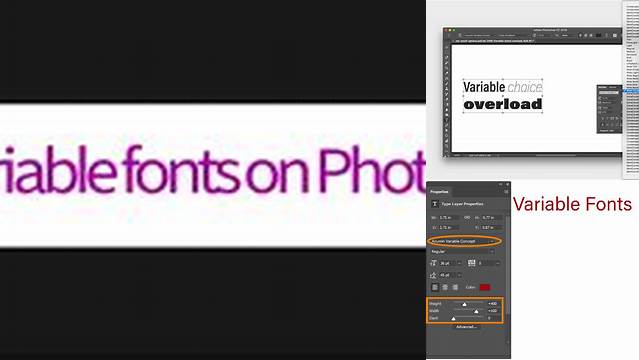
Use Variable Fonts In Photoshop: A Comprehensive Guide
Variable fonts, guys, are like the superheroes of the font world! They're super flexible and can morph into different styles using a single font file. This means smaller file sizes (yay for faster websites!) and tons of creative control. And guess what? Photoshop loves them! So, let's dive into how you can unleash the power of variable fonts in Photoshop.
What are Variable Fonts and Why Should You Care?
Before we jump into the Photoshop specifics, let's quickly chat about what variable fonts actually are. Imagine a regular font – it's like a fixed image. You get one weight (like bold) or one style (like italic), and that's it. Variable fonts, on the other hand, are like shape-shifters. They contain a range of styles within a single font file. This isn't just about bold and italic, though. We're talking about a whole spectrum of weights, widths, and even more stylistic options, all controlled by axes. Think of these axes as sliders that let you fine-tune your font's appearance. One axis might control the weight, letting you go from a super-thin hairline to a chunky extra-bold. Another might adjust the width, making the letters wider or narrower. And some variable fonts even have axes for things like optical size, serif styles, and more! So, why should you care about variable fonts? Well, for starters, they can significantly reduce the file size of your projects. Instead of loading multiple font files for different weights, you only need one. This is a big win for website performance, where every kilobyte counts. But the real magic of variable fonts lies in their flexibility. You can create unique and nuanced typography by adjusting the axes to precisely match your design needs. Want a slightly bolder heading? No problem. Need a wider font for a specific text block? Easy peasy. This level of control opens up a whole new world of creative possibilities. Variable fonts also offer a smoother experience for responsive design. Instead of switching between different font files at different screen sizes, you can adjust the axes to maintain visual consistency across all devices. This means your text will look great whether it's on a giant desktop monitor or a tiny smartphone screen. And let's not forget about the cool factor. Using variable fonts shows that you're staying ahead of the curve and embracing the latest technology in typography. It's a great way to add a touch of modern flair to your designs and impress your clients or collaborators. Plus, exploring the possibilities of variable fonts is just plain fun! You can experiment with different settings and create truly unique typographic expressions. It's like having a whole font library in a single file.
Using Variable Font Controls in Photoshop
Alright, you've got your variable font installed and ready to go. Now comes the fun part: actually using those nifty variable font controls in Photoshop. Don't worry, it's not rocket science! Photoshop makes it pretty straightforward to adjust the axes and customize your typography. First, select the Type tool (the one that looks like a "T") and create a text layer. Then, choose your variable font from the font menu. As we discussed earlier, look for the "VAR" icon next to the font name to confirm that it's a variable font. Once you've selected your variable font, you'll notice a new icon in the Character panel. It looks like a little graph or a set of sliders, and it's the key to unlocking the variable font magic. Click on this icon, and you'll see a list of the variable axes available for that font. The axes will vary depending on the font design, but common ones include Weight, Width, Optical Size, and Slant. Each axis has a slider that you can drag to adjust the corresponding property of the font. For example, if you drag the Weight slider to the right, the font will become bolder. If you drag the Width slider to the left, the letters will become narrower. As you adjust the sliders, you'll see the text on your canvas update in real-time. This allows you to experiment with different settings and find the perfect look for your design. You can also enter specific numerical values for each axis if you want more precise control. Simply click on the number next to the slider and type in your desired value. This is particularly useful if you have a specific weight or width in mind. In addition to the standard axes like Weight and Width, some variable fonts may have more specialized axes. These could include things like Serif, Contrast, or even more abstract stylistic variations. The best way to discover these axes is to simply explore the options in the Character panel. Play around with the sliders and see what happens! You might be surprised at the range of possibilities. One of the cool things about variable fonts is that you can animate the axes over time. This opens up some exciting possibilities for motion graphics and animated typography. To animate a variable font axis in Photoshop, you can use the timeline panel. Simply set keyframes for the axis values at different points in time, and Photoshop will automatically interpolate the values between the keyframes. This allows you to create smooth and dynamic transitions between different font styles. For example, you could animate the Weight axis to make a word gradually become bolder, or you could animate the Width axis to create a pulsating effect. The possibilities are endless! Another tip for working with variable fonts in Photoshop is to save your favorite settings as character styles. If you find a combination of axis values that you really like, you can save it as a character style and easily apply it to other text layers in your document. This can save you a lot of time and ensure consistency across your design. To save a character style, simply select the text layer with your desired settings and click the "Create New Character Style" button in the Character Styles panel. You can then give your style a name and easily apply it to other text layers.
Tips and Tricks for Working with Variable Fonts in Photoshop
So, you're getting the hang of using variable fonts in Photoshop, which is awesome! But like any new tool, there are always some tips and tricks that can help you work more efficiently and creatively. Let's dive into some pro tips that will take your variable font game to the next level. First up, think about the context of your design. Variable fonts aren't just about making things look cool; they're about creating typography that's both functional and beautiful. Consider the purpose of your text, the overall tone of your design, and the target audience. For example, if you're designing a website, you might want to use a variable font with a wide range of weights to ensure readability across different screen sizes. If you're creating a logo, you might experiment with different stylistic axes to create a unique and memorable mark. It's also important to think about the hierarchy of your text. Variable fonts can be a powerful tool for establishing visual hierarchy by using different weights and sizes. For example, you might use a bold weight for headings and a lighter weight for body text. This helps guide the reader's eye and makes your design more scannable. Don't be afraid to experiment with different combinations of axes. One of the great things about variable fonts is that they offer a ton of flexibility. Try pushing the sliders to their extremes to see what kind of effects you can create. You might discover some unexpected and interesting results. Just remember to always keep readability in mind. While it's fun to push the boundaries, you don't want to sacrifice clarity for the sake of style. Another tip is to use the optical size axis if your variable font has one. The optical size axis adjusts the font's appearance to make it look good at different sizes. This can be particularly useful for designs that will be viewed at both small and large sizes, such as logos or posters. If your variable font doesn't have an optical size axis, you can still achieve a similar effect by manually adjusting the font size and weight. However, the optical size axis provides a more nuanced and precise way to optimize the font's appearance. When working with variable fonts in Photoshop, it's a good idea to organize your text layers using folders and groups. This can make it easier to manage complex designs and keep track of your different typographic styles. You can also use layer styles to add effects like shadows, outlines, and gradients to your text. Just remember to use these effects sparingly and in a way that complements the overall design. Finally, don't forget to save your work! Variable fonts are a relatively new technology, and it's always a good idea to back up your files in case something goes wrong. You should also save your Photoshop files in a format that preserves the variable font information, such as PSD or TIFF. This will ensure that your typography looks the same when you open the file on a different computer or in a different version of Photoshop.
Even with the best tools and knowledge, sometimes things don't go quite as planned. So, let's tackle some common issues you might encounter when using variable fonts in Photoshop, and how to troubleshoot them like a pro. First up, what if you can't see the "VAR" icon next to your font in Photoshop? This is a pretty common issue, and there are a few possible causes. The most likely reason is that the font you've selected isn't actually a variable font. Double-check that you've downloaded a variable font file (usually a .ttf or .otf file) and that it's properly installed on your system. You can also try filtering your font list in Photoshop to show only variable fonts. To do this, click on the font menu and then click on the "Variable Fonts" filter. If you're sure you've installed a variable font but you still don't see the "VAR" icon, try restarting Photoshop. Sometimes, the application needs a refresh to recognize newly installed fonts. If that doesn't work, try restarting your computer. In rare cases, there might be a conflict between different font files on your system. If you have multiple versions of the same font installed, it can sometimes cause problems. Try removing any duplicate font files and see if that resolves the issue. Another common issue is that the variable font axes aren't working as expected. For example, you might drag the Weight slider, but the font doesn't seem to get any bolder. This can happen if the variable font file is corrupted or if there's a problem with the font's internal design. In this case, try downloading the font file again from a reputable source. If the issue persists, it's possible that the font itself has a bug. You can try contacting the font foundry or designer to report the problem. Sometimes, you might notice that the text looks jagged or pixelated when you adjust the variable font axes. This is usually due to antialiasing issues. Make sure that antialiasing is enabled in Photoshop's preferences. You can find the antialiasing settings in the Type section of the Preferences dialog. You can also try adjusting the rendering mode of your text layer. In the Character panel, there's a dropdown menu labeled "Rendering." Try different options like "Sharp," "Crisp," or "Smooth" to see which one looks best for your font. If you're animating variable fonts in Photoshop, you might encounter issues with the animation not playing smoothly. This can be caused by performance limitations or by complex keyframe setups. Try simplifying your animation and reducing the number of keyframes. You can also try optimizing your Photoshop performance by closing unnecessary applications and freeing up memory. Finally, if you're still having trouble with variable fonts in Photoshop, don't hesitate to consult online resources. There are many helpful tutorials, articles, and forum discussions that can provide guidance and solutions. The Photoshop community is a great place to ask questions and get help from other designers.
So, there you have it, guys! You're now equipped with the knowledge to conquer variable fonts in Photoshop. They're a game-changer for typography, offering flexibility, smaller file sizes, and tons of creative potential. Go forth, experiment, and create some stunning designs! Remember, the key is to play around with the axes, explore different combinations, and find what works best for your project. Variable fonts are all about expressing your unique style and pushing the boundaries of typography. And don't forget to share your creations with the world! We can't wait to see what you come up with. Happy designing!